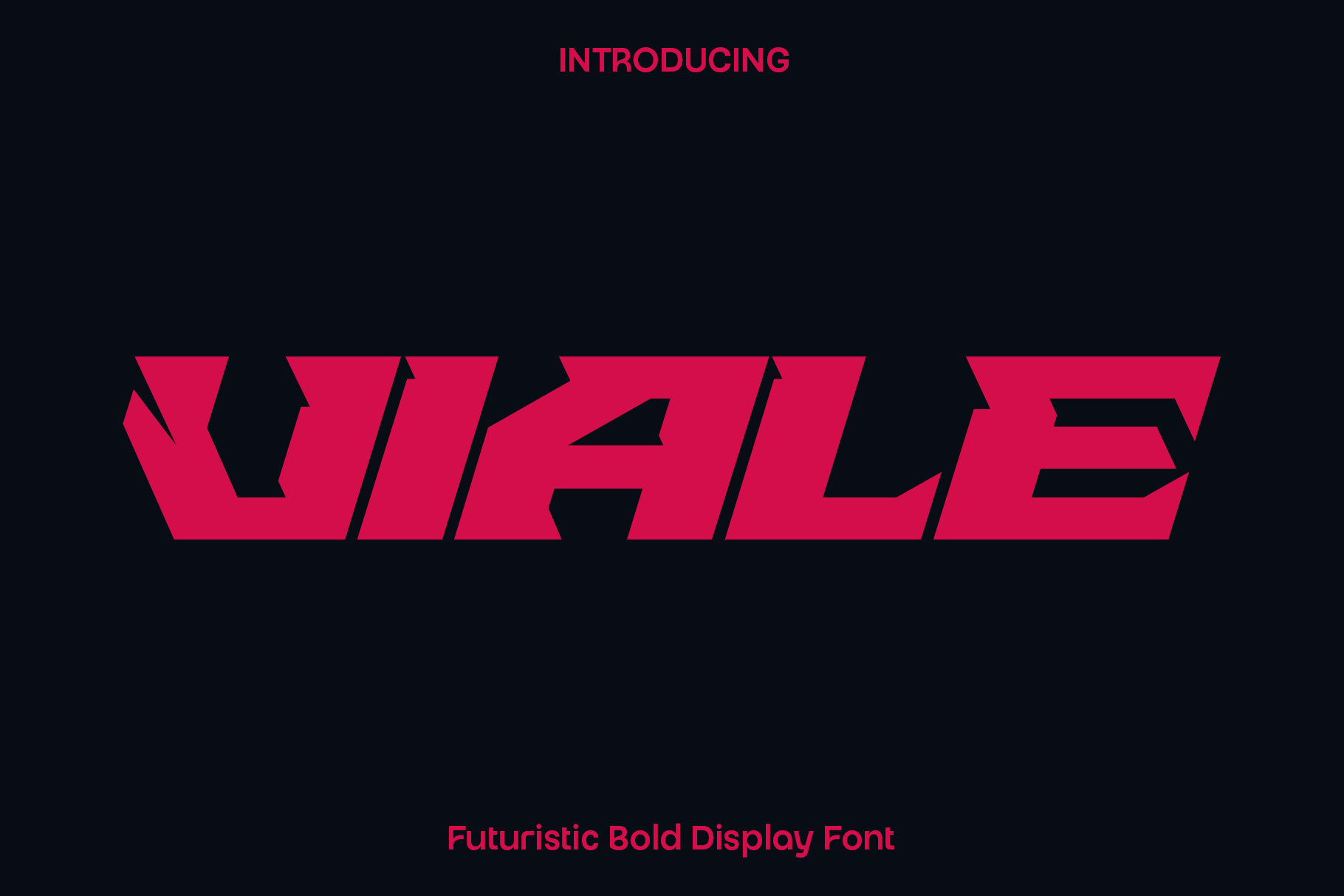
Viale - Futuristic Bold Display Font
Viale is a futuristic bold display font designed to bring speed, power, and modern energy into your creative projects. Inspired by racing culture, sci fi aesthetics, and high impact action visuals, Viale features sharp letterforms and strong geometric details that create a bold and dynamic appearance. Every character is crafted to feel aggressive, modern, and visually striking, making this font perfect for designs that demand attention.
This font shines beautifully in racing themes, gaming graphics, movie titles, sports branding, posters, automotive designs, esports visuals, technology branding, and futuristic logos. Its bold structure delivers excellent readability while maintaining a stylish and cutting edge personality that stands out across both digital and print applications.
Viale was created for designers who want typography that feels fast, powerful, and innovative. The futuristic style gives your projects a modern cinematic atmosphere, helping you create visuals filled with motion and excitement. Whether used for dramatic headlines or strong logo identities, Viale transforms ordinary text into a commanding visual statement.
The combination of bold shapes and futuristic inspiration makes Viale versatile for a wide range of creative concepts. From action inspired graphics to modern branding projects, this font adds confidence, energy, and originality to every design.
Viale Font Features:
• Uppercase and lowercase characters
• Numerals and punctuation
• Futuristic bold display style
• Strong and dynamic letterforms
• Perfect for racing, gaming, film titles, logos, and sports branding
• Modern and high impact typography appearance
• Suitable for print and digital projects
• Creative futuristic design aesthetic